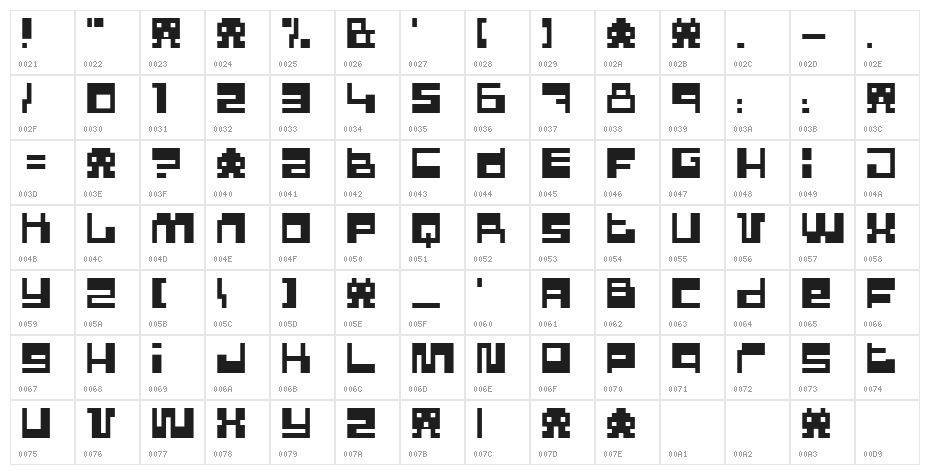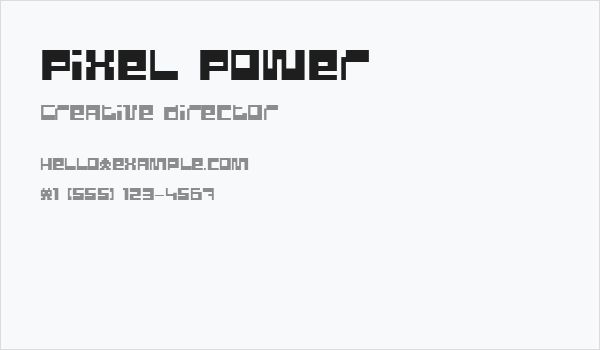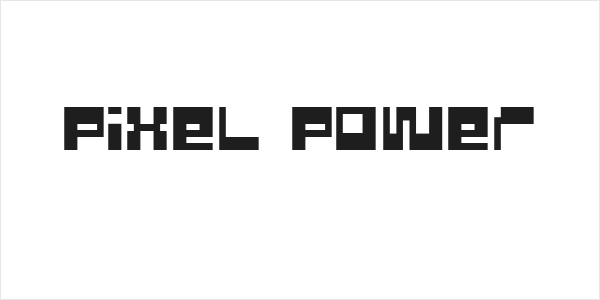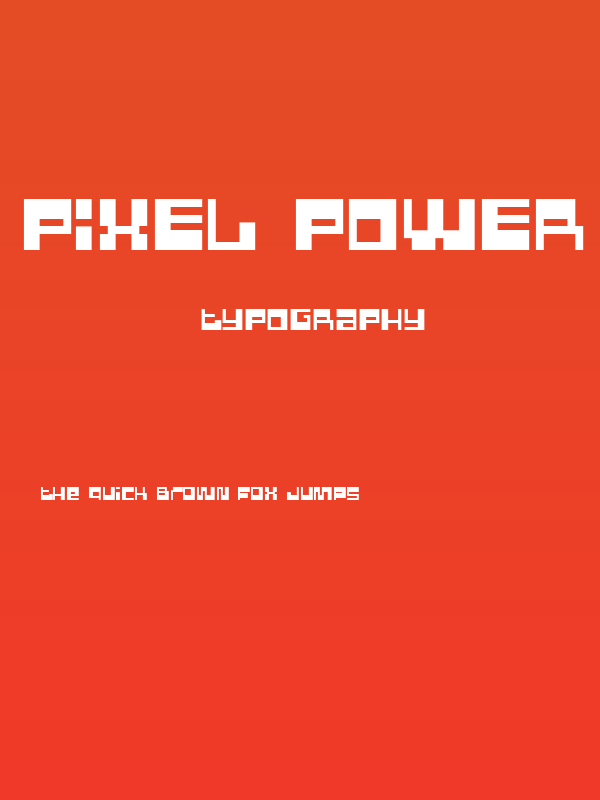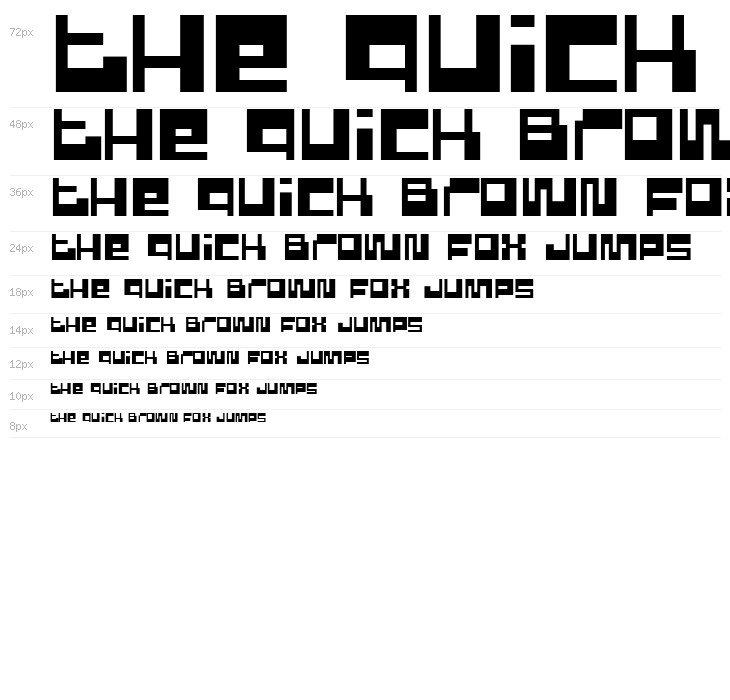
Pixel Power Font
Pixel Power Description
This font features a bold, pixelated design reminiscent of retro video games and digital displays. Each character is constructed with a blocky, geometric style, emphasizing sharp angles and straight lines. The uppercase and lowercase letters maintain a consistent height, contributing to a uniform appearance. Numbers and special characters follow the same pixelated aesthetic, ensuring a cohesive look across all glyphs. The font's distinct style makes it highly legible at various sizes, particularly effective in digital or themed contexts.
| Overall Style | Retro, Digital |
| Use Case | Headlines, Logos, Digital displays |
| Proposed Projects | Ideal for video game graphics, digital art projects, retro-themed designs, and tech-related branding. |